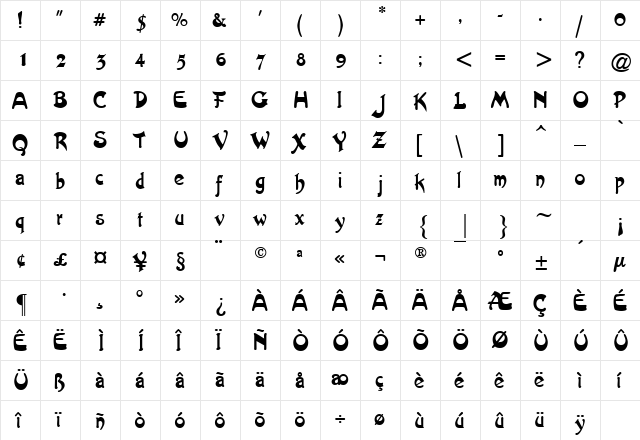
KaravanDisplaySSK Regular Font Preview
KaravanDisplaySSK Regular
Design Context for KaravanDisplaySSK Typeface
KaravanDisplaySSK is built around its visual character rather than neutral utility — its distinctive forms are designed to make an impression at display sizes.
Font Pairing: Pair with a clean neutral sans-serif for body copy to let KaravanDisplaySSK's character lead without overwhelming the composition.
Pro Tip: Treat KaravanDisplaySSK as the centrepiece of your typographic hierarchy. One strong heading set in a decorative face can carry an entire layout.